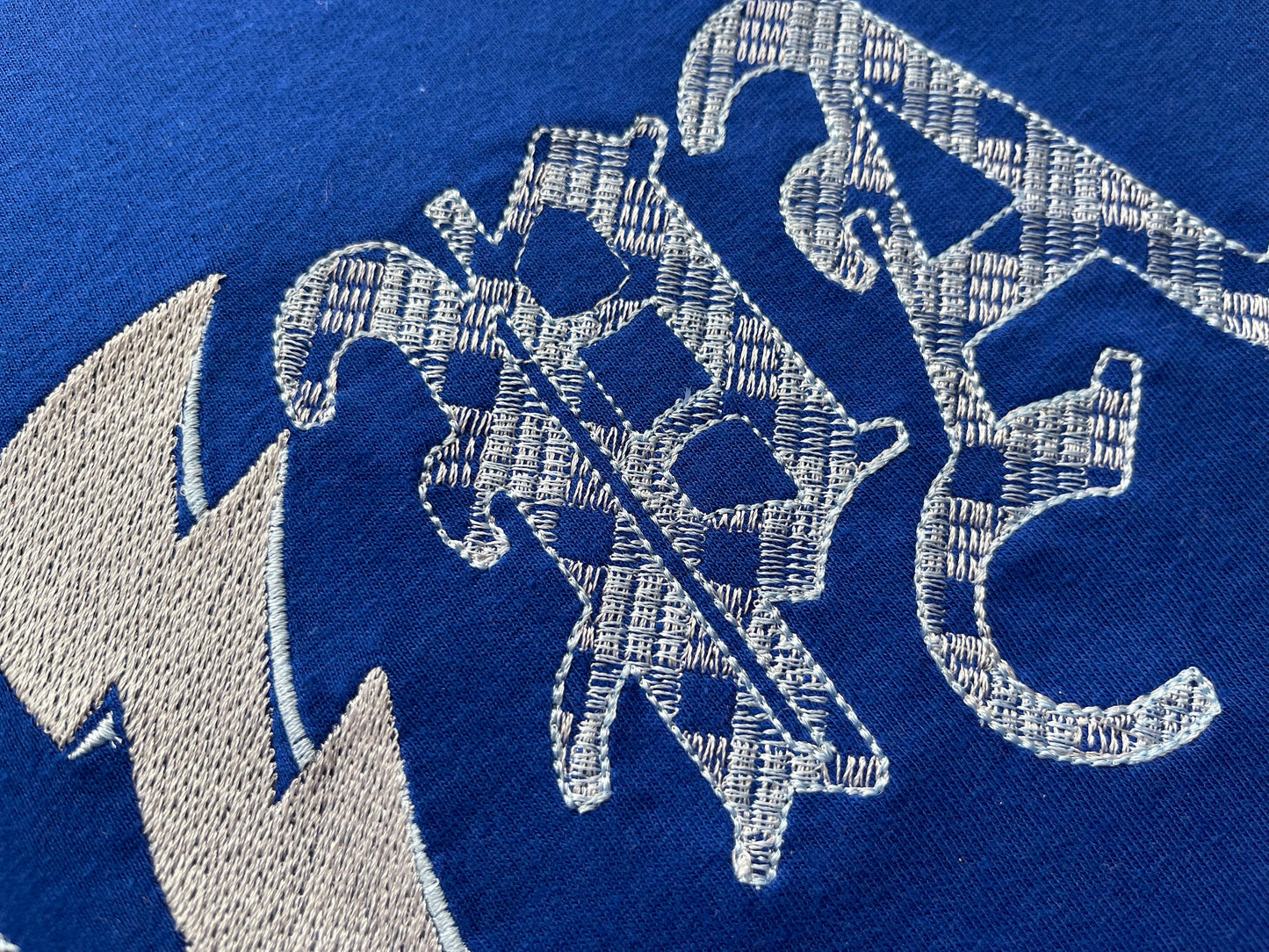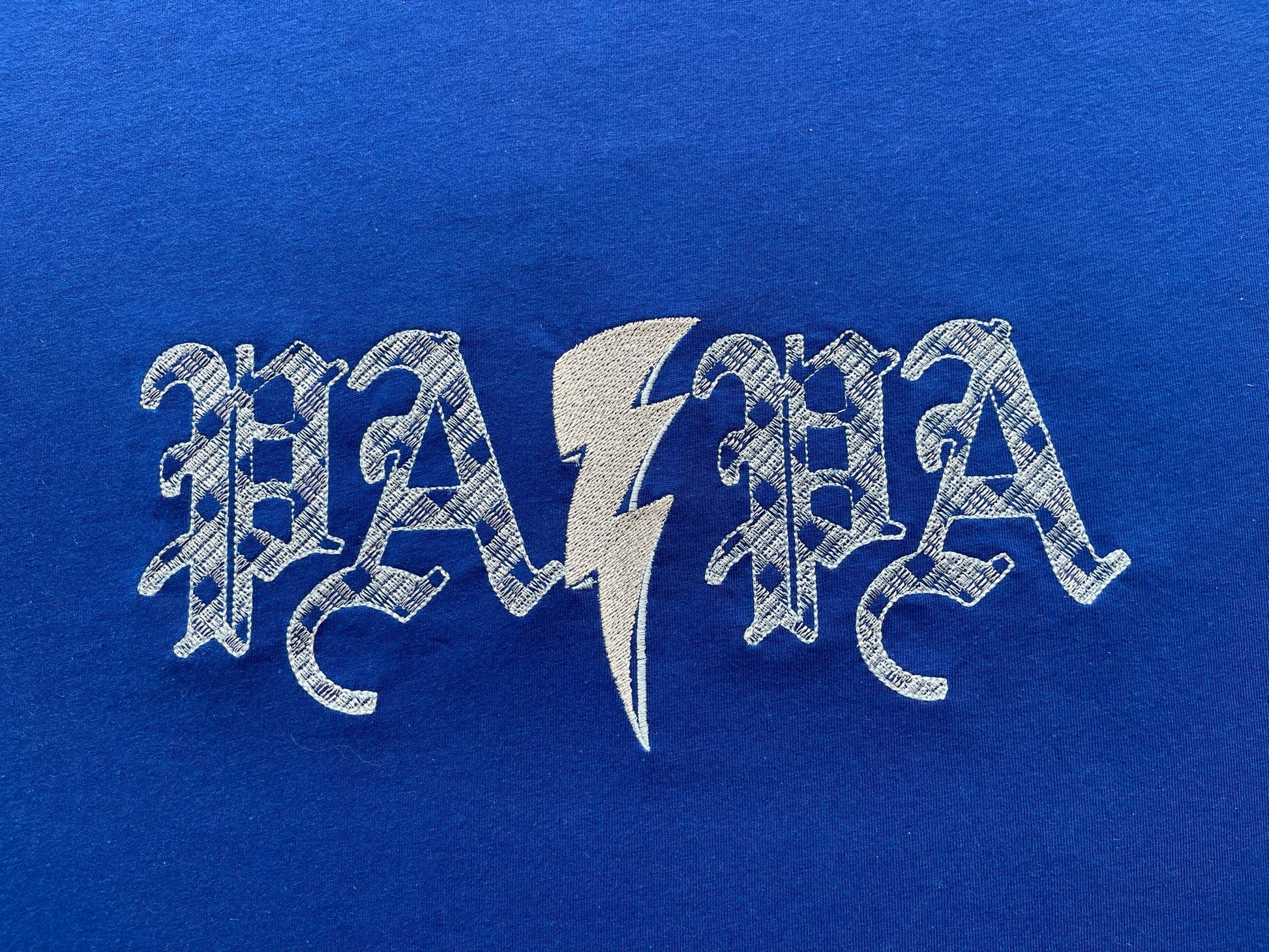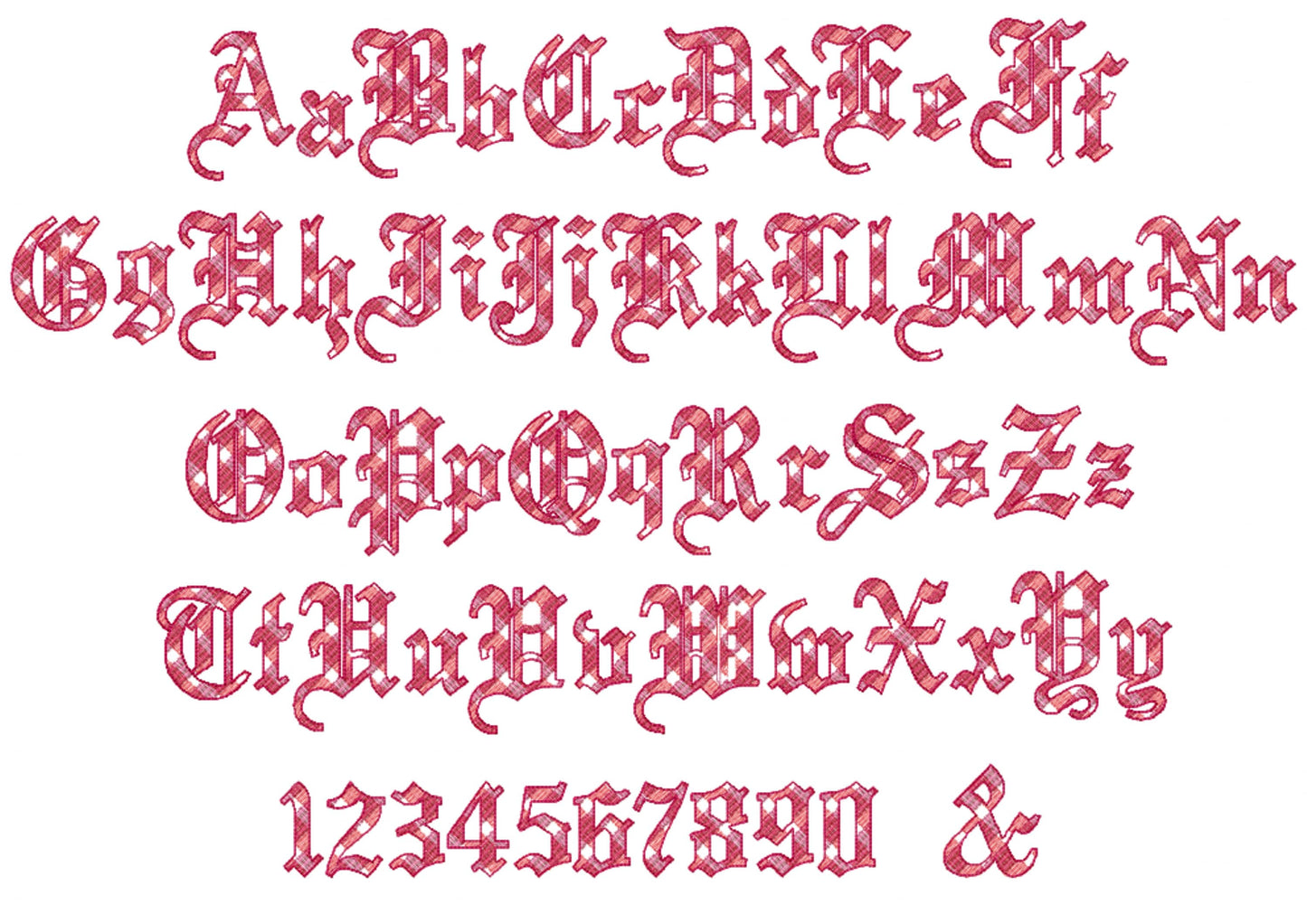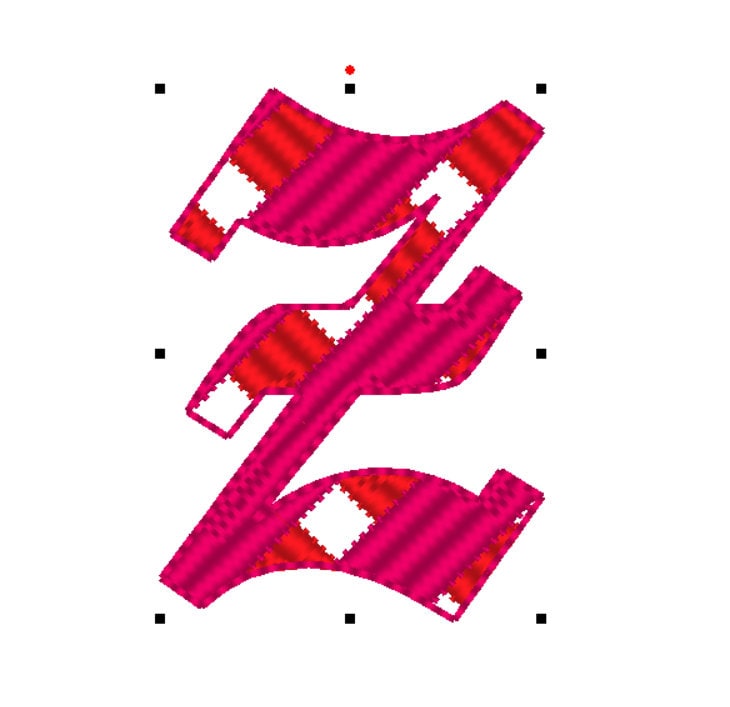
Old English Rocker Buffalo Plaid Font
Or click to open the linkA classic Old English rocker font with buffalo plaid gingham lines, in light sketch stitch. Great for rocker shirts, jackets, Christmas stockings and pillows.
Uppercase and lowercase letters, numbers 0 to 9 and punctuation. Seven sizes: 1.5, 2, 2.5, 3, 3.5, 4 and 5 inches. Lacy, quick stitching; the gingham lines are stitched in and the fabric shows through.
- Old English buffalo plaid sketch font
- Uppercase, lowercase, numbers 0 to 9, punctuation
- 7 sizes, 1.5 to 5 in